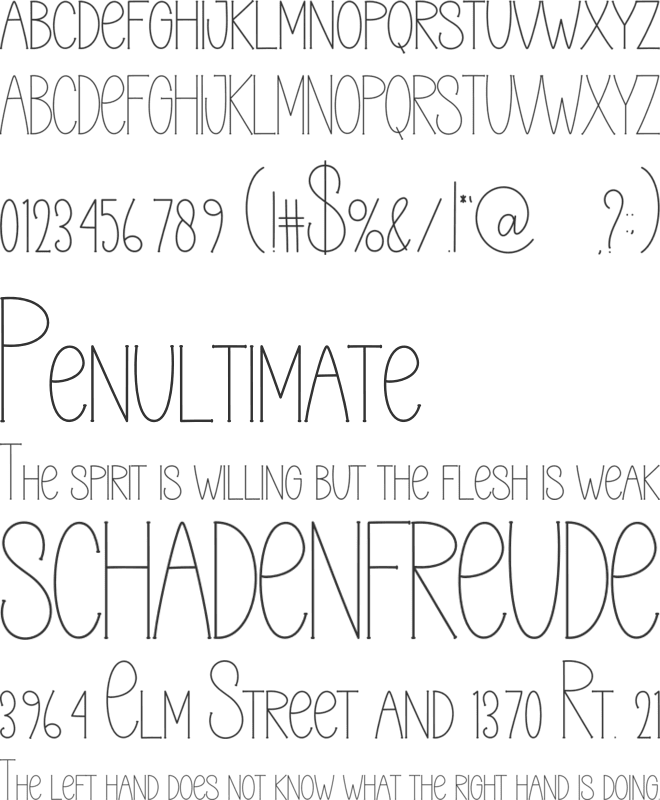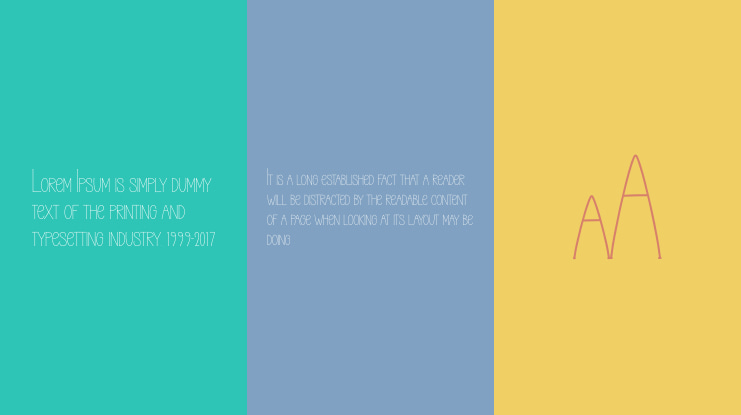
MINIMALIST WRITING Font
Featuring the latest stylish fonts suitable for wall displays, wedding invitations, social media logos, advertisements, product packaging, designs, labels, photography, watermarks, invitations, stationery, and any project that demands elegant handwriting.